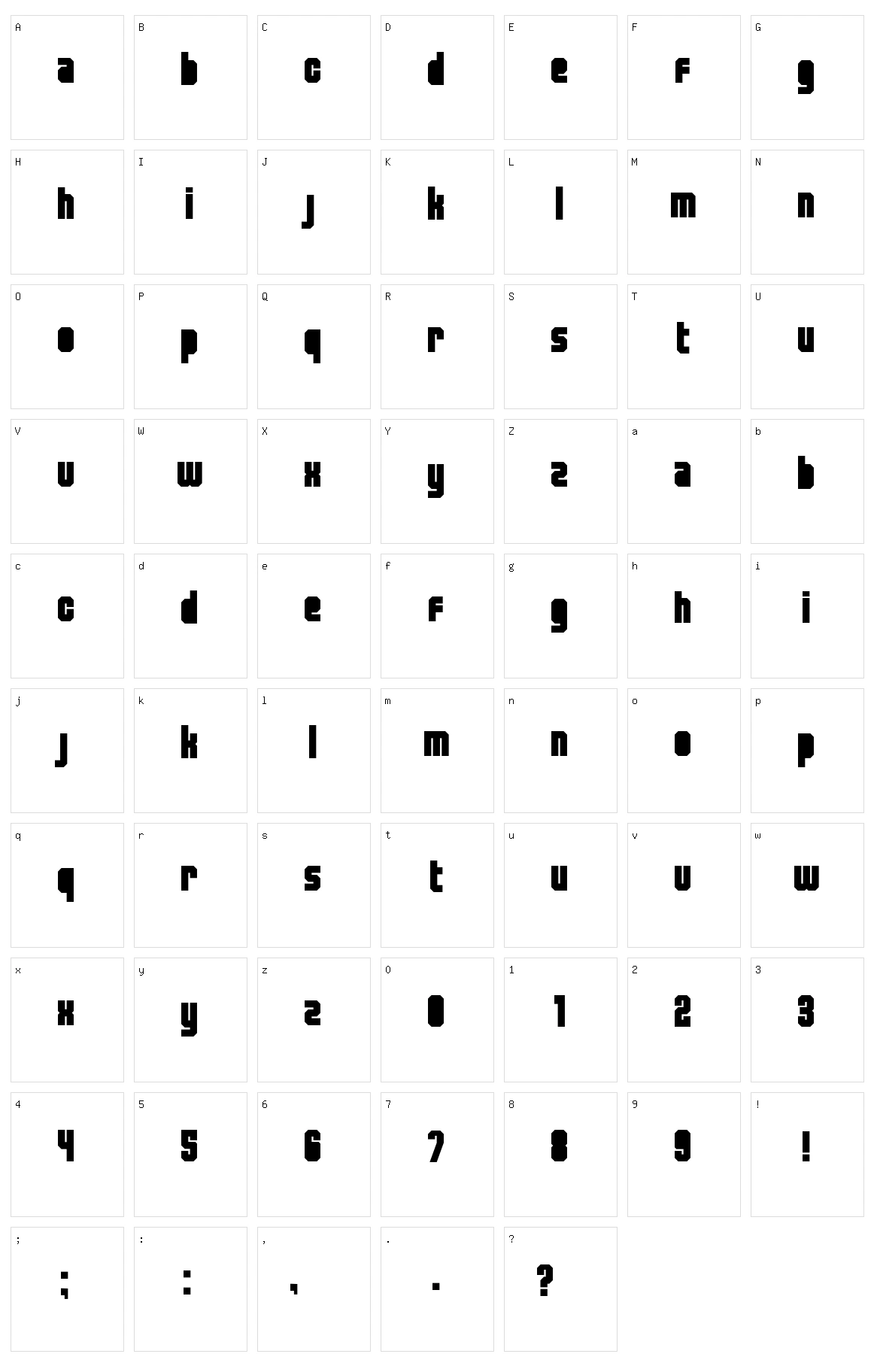
The free font Released is carefully designed by Neogrey Creative, showcasing a thoughtful balance of creativity and usability and falls under the Square font style. When you download the ZIP file, it contains only 5.19 KB of font files, making it lightweight and quick to download. Please review the license details below to understand permitted usage and distribution rights. If license information is not available, we recommend using this font for personal projects only or contacting the author directly for commercial usage permissions.
2009 neogrey creative - Ivan Philipov
This font has been created partially using FontStruct by FontShop and is inspred by the Release Yourself compilations by Roger Sanchez.